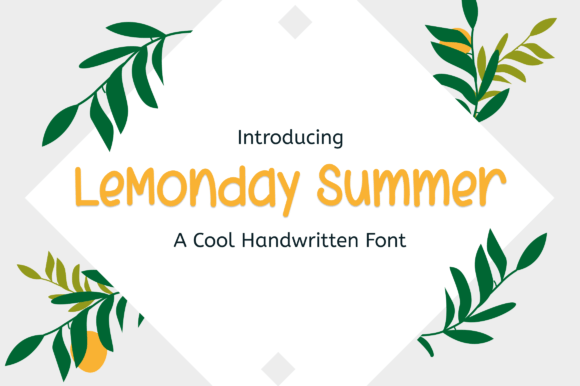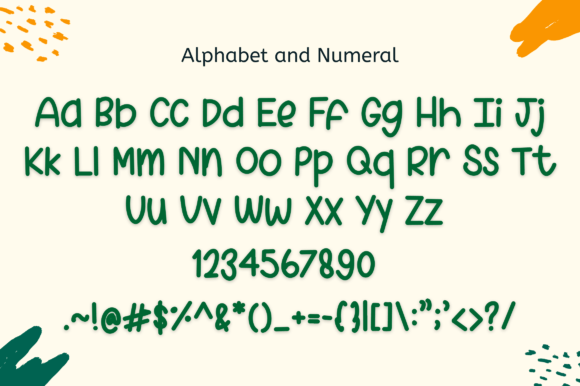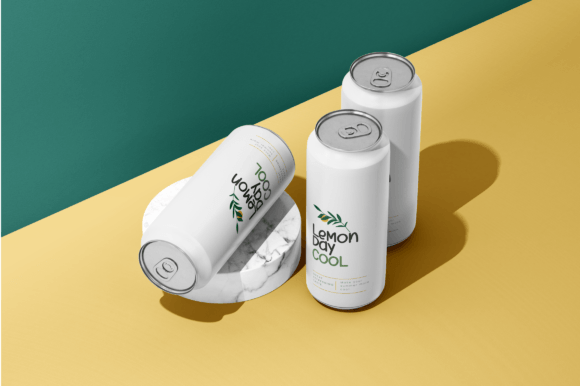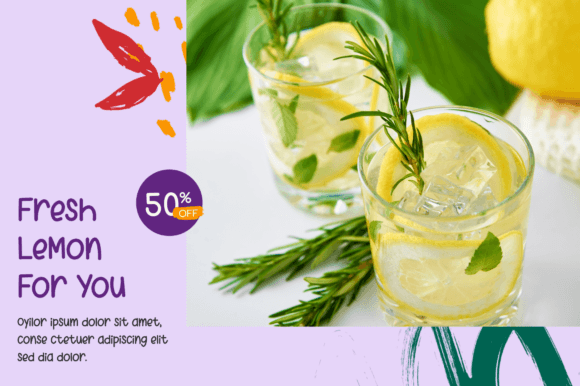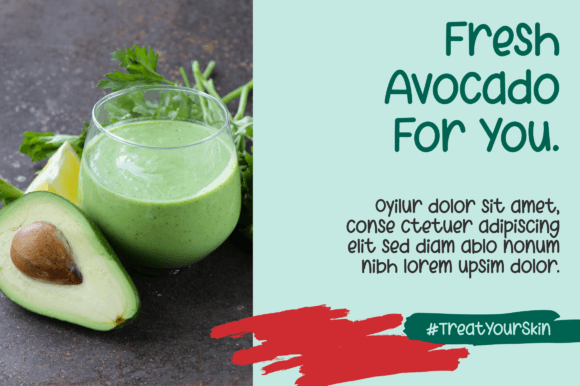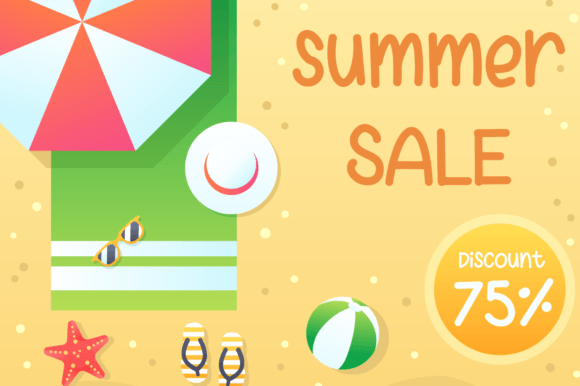
Lemonday Summer Font
About Lemonday Summer Font
Introducing Lemonday Summer, a cool handwritten font crafted with a monoline brush to evoke the refreshing vibes of summer. This versatile typeface is well-suited for a variety of purposes, making it perfect for logos, headings, t-shirts, letterhead, labels, news, posters, badges, and more. Specifically designed to capture the essence of summer, Lemonday Summer is an excellent choice for creating Instagram sale posts, stories, and campaign products.
The monoline brush style of Lemonday Summer adds a laid-back and casual feel to your designs, making it ideal for conveying the easygoing atmosphere of summer. Whether you’re working on branding materials, merchandise, or promotional content, this font brings a touch of warmth and freshness.
For logos and headings, Lemonday Summer becomes a distinctive and memorable choice. Its handwritten charm adds personality to your brand, making it more relatable and engaging.
In the realm of apparel, Lemonday Summer is a great fit for t-shirts and other clothing items. The casual yet stylish nature of the font enhances the overall aesthetics, creating designs that resonate with a laid-back summer vibe.
Letterhead and labels benefit from the friendly and approachable look of Lemonday Summer. It’s a font that adds a touch of personality to your written communications, making them more inviting and visually appealing.
For social media, Lemonday Summer is especially effective in creating Instagram sale posts, stories, and product campaigns. Its cool and refreshing style captures attention and communicates the essence of summer in a visually appealing way.
In summary, Lemonday Summer is more than just a font; it’s a creative tool designed to bring the cool and carefree vibes of summer to your designs. Whether you’re crafting logos, apparel designs, or social media content, let Lemonday Summer be the font that infuses your creations with the spirit of a sunny day.